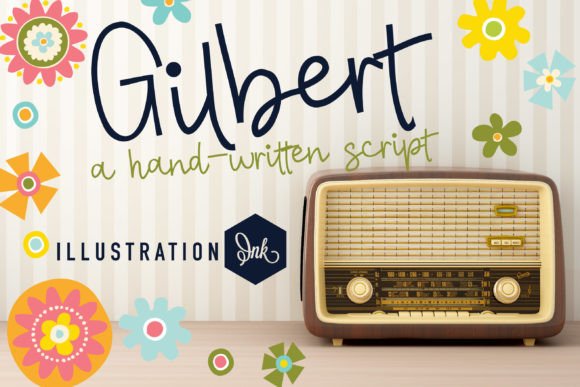
Gilbert Font: The Ultimate Script Font for Creative Projects
In the world of typography, fonts play a crucial role in conveying the tone and personality of a brand or design. Among the numerous fonts available, Gilbert Font stands out as a stunning and exquisite script font that embodies fun and creativity. With its playful and dynamic letterforms, Gilbert Font exudes a sense of energy and enthusiasm, making it perfect for social media graphics, branding, and a multitude of other creative projects.
The Design and Features of Gilbert Font
Gilbert Font is a meticulously crafted script font that boasts a unique and captivating design. Its letterforms are carefully shaped to convey a sense of movement and fluidity, giving it a dynamic and lively feel. The font features:
- Playful and Dynamic Letterforms: Gilbert Font’s letterforms are designed to be playful and dynamic, with subtle variations in line width and curvature that give it a hand-drawn feel.
- Excellent Legibility: Despite its creative and artistic design, Gilbert Font maintains excellent legibility, making it suitable for use in a variety of applications, from headlines to body text.
- Multilingual Support: Gilbert Font supports multiple languages, allowing designers to use it for projects that require non-English characters.
Uses of Gilbert Font
Gilbert Font’s versatility and creative appeal make it an excellent choice for a wide range of design projects, including:
- Social Media Graphics: Gilbert Font is perfect for creating engaging social media graphics, such as Instagram posts, Facebook headers, and Twitter banners.
- Branding and Logo Design: The font’s unique and memorable design makes it an excellent choice for branding and logo design projects.
- Advertising and Marketing Materials: Gilbert Font can add a touch of creativity and fun to advertising and marketing materials, such as brochures, flyers, and posters.
- Crafting and DIY Projects: Crafters and DIY enthusiasts can use Gilbert Font to add a personal touch to their projects, such as handmade cards, scrapbooking, and journaling.
Tips for Using Gilbert Font Effectively
To get the most out of Gilbert Font, follow these tips:
- Use it for Headlines and Titles: Gilbert Font is perfect for headlines and titles, where its creative and attention-grabbing design can shine.
- Experiment with Colors and Textures: Don’t be afraid to experiment with different colors and textures to add depth and visual interest to your designs.
- Pair it with Other Fonts: Gilbert Font can be paired with other fonts to create a unique and visually appealing typography combination.
Gilbert Font is a stunning and versatile script font that is perfect for designers and crafters looking to add a touch of fun and creativity to their projects. With its playful and dynamic letterforms, excellent legibility, and multilingual support, Gilbert Font is an excellent choice for a wide range of design applications. Whether you’re working on social media graphics, branding, advertising materials, or crafting projects, Gilbert Font is sure to inspire your creativity and help you achieve your design goals.
Get Creative with Gilbert Font